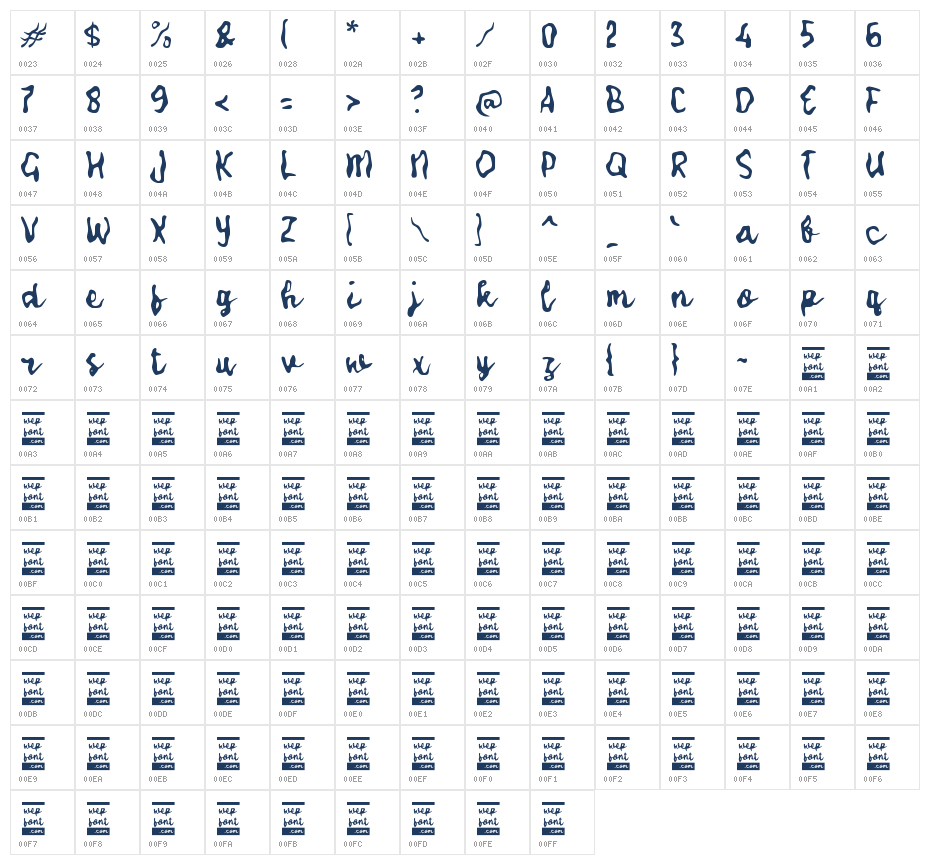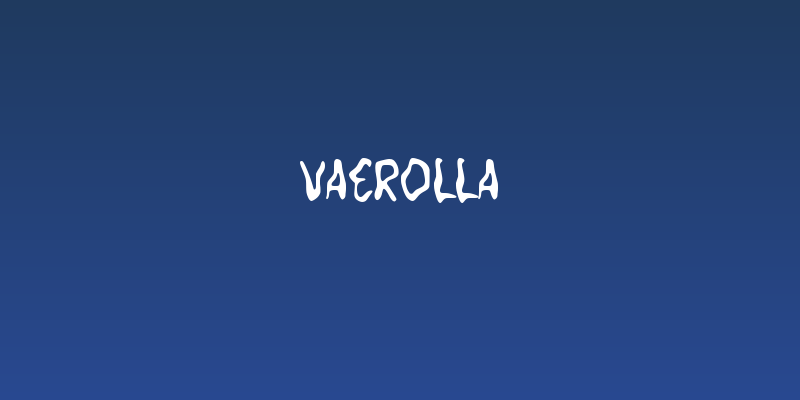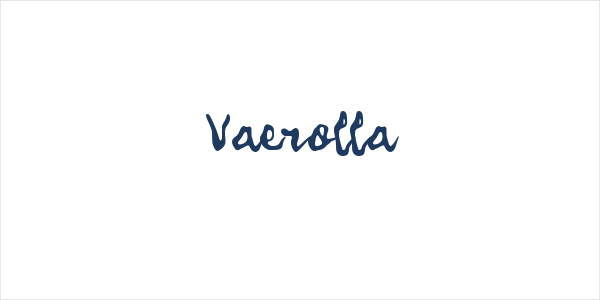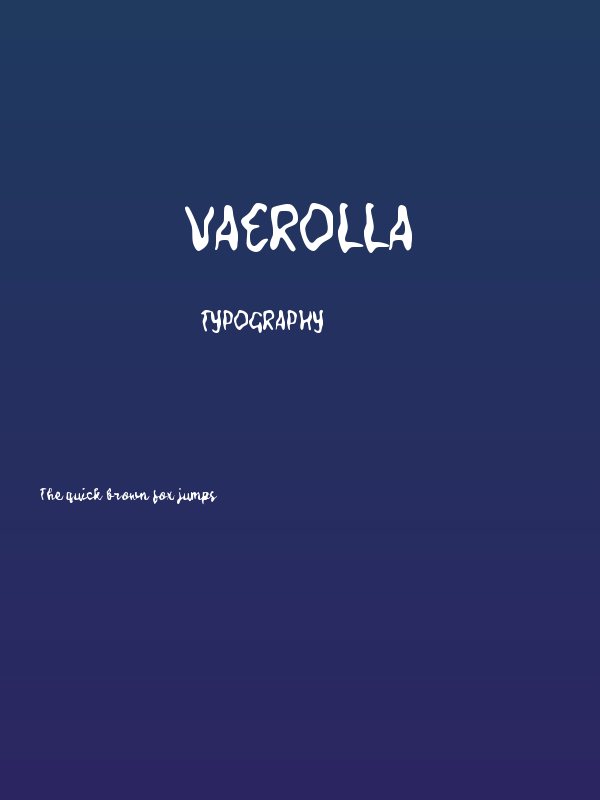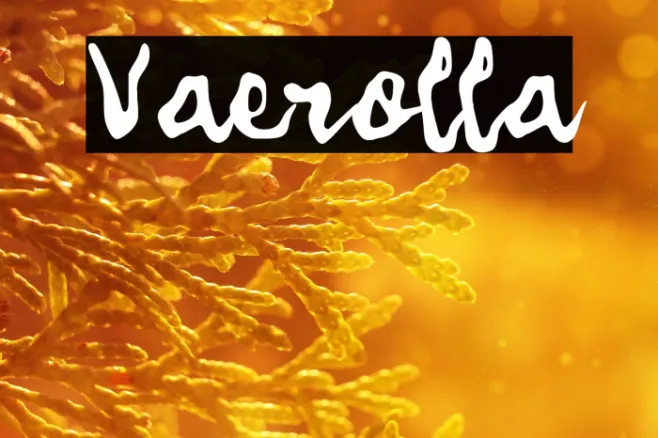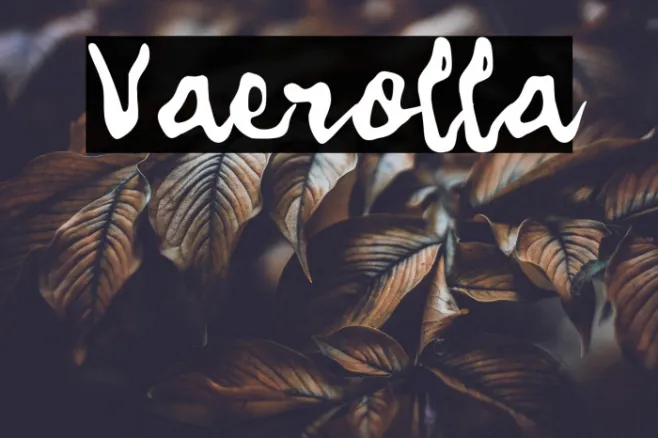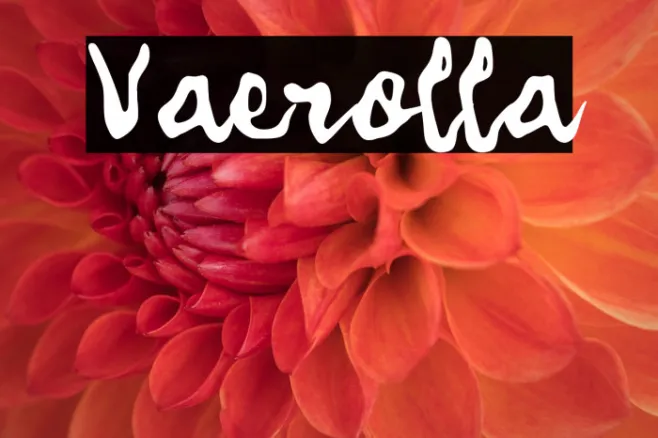
Vaerolla Font
Vaerolla Description
A playful, handwritten style font with irregular, organic shapes that resemble casual, brush script lettering.
| Overall Style | Casual, Playful, Organic |
| Use Case | Headlines, Body text, Logos, Creative projects |